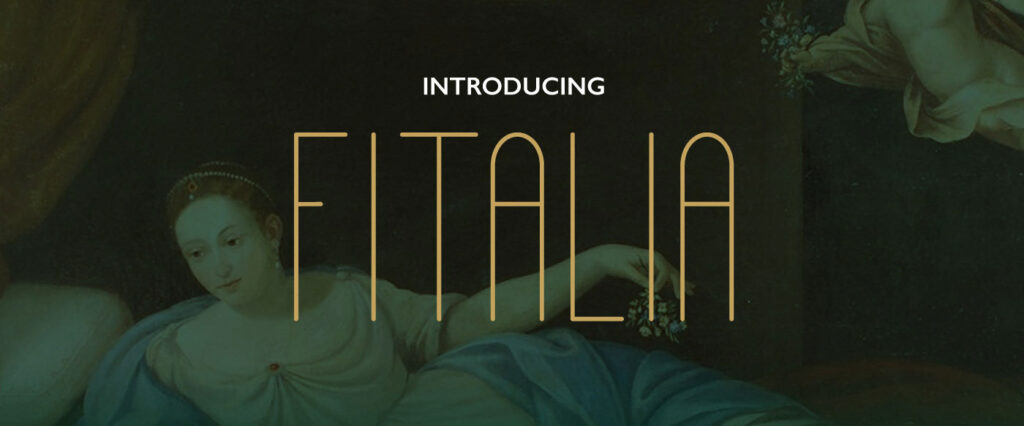
Fitalia is an all-caps sans-serif typeface. It has an elegant look due to its simple shape, with fairly narrow width and soft edges. The clean and modern geometric form makes it ideal for display usage. It’s designed to be used primarily on headlines or captions, and it’s suitable for many visual projects. Free for personal & commercial use.